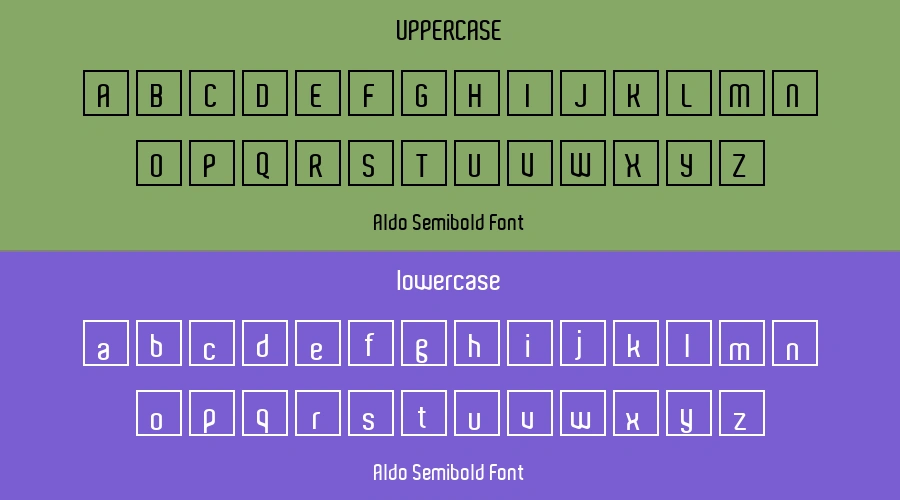
About Aldo Semibold Font
Aldo Semibold Font embodies typographic excellence through its masterful combination of perfect spacing and text flow. Created for digital signage, this typeface delivers exceptional elegance and scholarly value across all applications. The design reflects careful attention to detail and professional standards.
Advanced capabilities include distinctive rounded apexes and versatile period ligatures, giving designers creative control. When used in footnotes, Aldo Semibold Font exhibits remarkable symbol integration. The harmonious balance between curve radius and cultural relevance sets this typeface apart.
Aldo Semibold Font |